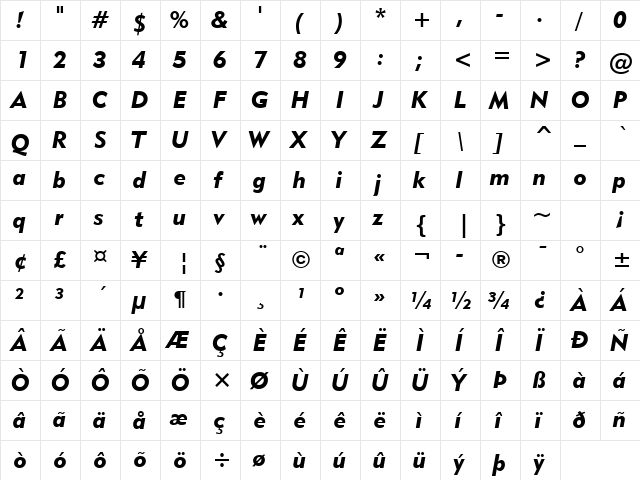
Geometr415 Blk BT Black Italic
Design Context for Geometr415 Blk BT Typeface
Geometr415 Blk BT is a composed and adaptable typeface that performs quietly and consistently across a wide range of design contexts. The dynamic lean of this cut emphasises speed and emphasis in any layout.